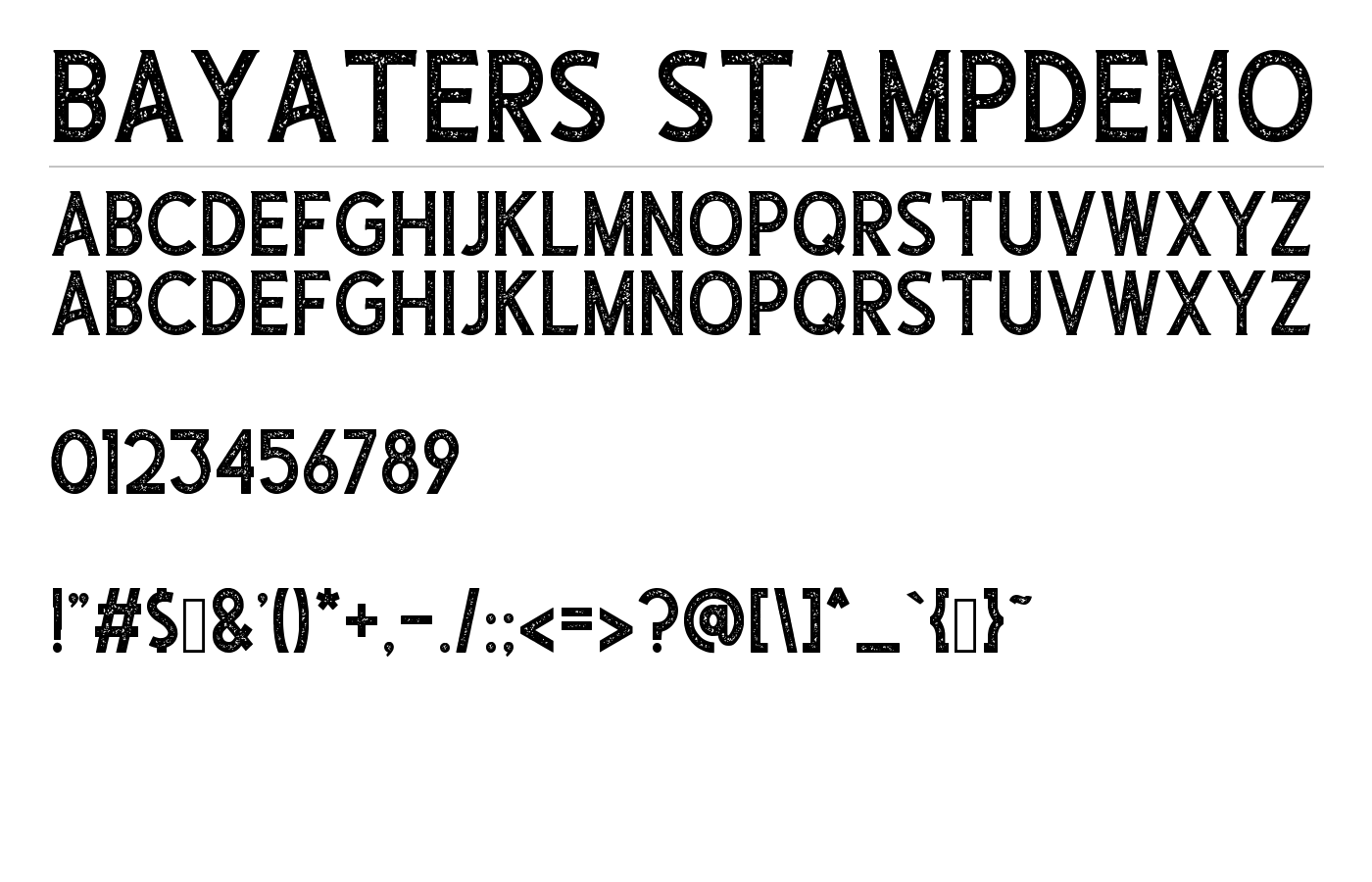
Bayaters StampDemo is a bold, all-uppercase sans serif font with a distressed, textured appearance that mimics the look of vintage rubber stamps. Its slightly condensed letterforms and rough, irregular edges give it a rugged, authentic feel, making it ideal for designs that want to convey a handmade, industrial, or retro vibe. This font works well in logos, posters, packaging, and headlines where a strong, eye-catching impact with a nostalgic touch is desired.
| Font family | Bayaters StampDemo Font |
| Designer | Mustofa Nur Sidiq |